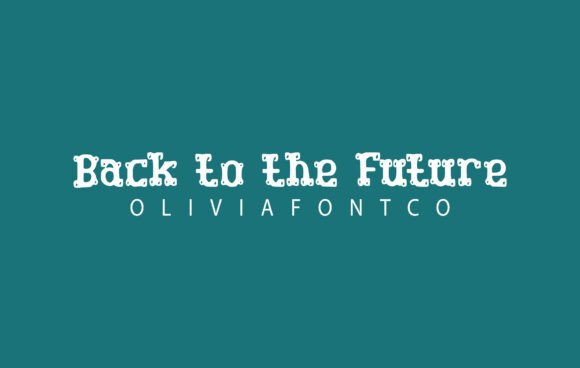
Some fonts don’t just look good — they become cultural icons. Few fonts have captured the imagination of movie lovers, retro design fans, and pop culture enthusiasts quite like the Back to the Future Font.
Recognizable at a glance, this bold, dynamic style instantly sparks nostalgia and excitement. Inspired by the legendary sci-fi movie trilogy from the 1980s, the font isn’t just about letters; it’s about movement, speed, and that unmistakable ‘80s vibe.
In this guide, we’ll explore what makes the Back to the Future Font special, creative ways to use it, how to download it, and answer common questions to help you bring its iconic style into your projects.
What Makes Back to the Future Font So Iconic?
✨ Instant Recognition
The slanted, speed-inspired letters evoke the movie’s time-traveling DeLorean, capturing a sense of motion and energy that’s timeless.
🎬 Pop Culture Status
Since the first film hit screens in 1985, the logo and font have become symbols of the decade’s sci-fi creativity and design style.
🎨 Retro Yet Timeless
With bold lines, angled cuts, and a futuristic aesthetic, this font is perfect for designs that nod to retro while still feeling fresh.
💥 High Impact
Its thick, stylized characters stand out in any design — from posters to YouTube thumbnails.
The Original Back to the Future Font
The movie’s iconic logo was custom-designed and isn’t an official commercial font. But thanks to dedicated designers and fans, there are fan-made replicas that closely match the original look.
One of the most popular replicas is called “Back to the Future” or “Back to the Future Bold.” These fonts recreate the tilted, dynamic style that made the logo so memorable.
Best Uses for Back to the Future Font
The font’s bold, sci-fi look makes it perfect for creative, nostalgic, or futuristic projects:
✅ Movie Posters & Fan Art – Recreate the classic style or design your own retro-futuristic posters.
✅ YouTube Thumbnails & Channel Branding – Especially for content about movies, gaming, or 1980s culture.
✅ Event Flyers & Invitations – Themed parties, sci-fi events, or retro nights.
✅ Merchandise & T-shirts – Quotes, logos, or fan merchandise that celebrate the franchise.
✅ Social Media Graphics – Posts or banners with a nostalgic, pop-culture twist.
✅ Title Designs – For podcasts, Twitch overlays, or themed video series.
Tips for Designing with Back to the Future Font
⚡ Add Motion: Tilt text, use slanted shapes, or add speed lines to echo the logo’s dynamic feel.
🌈 Use Gradients: The original logo used bold gradients from red to yellow for a fiery look.
🎨 Pair with Simple Fonts: Combine the bold logo font with clean sans-serifs for supporting text.
🕰 Think Retro: Use neon colors, grids, and retro patterns to complete the 80s aesthetic.
📐 Large Titles Only: The font’s detail makes it best for headlines, logos, or large text, not body copy.
Creative Ideas to Try
🎥 80s Movie Night Poster: Design an invitation using the font with neon backgrounds.
🕹 Retro Gaming Channel: Brand your YouTube thumbnails with the font for instant nostalgia.
👕 Custom T-shirts: “Back to the Party” or “Back to the 90s” in classic style.
🎉 Birthday Invitations: Especially fun for milestone birthdays with a retro twist.
Why Back to the Future Font is Still Loved Today
Decades later, the font still resonates because:
🕰 Nostalgia: It brings back memories of a beloved film and the excitement of 80s pop culture.
🎬 Timeless Design: The slanted, bold look still feels modern and dynamic.
⚡ Unique Style: It’s instantly recognizable, unlike many generic sans-serifs.
For designers, it’s a playful yet powerful way to tap into retro-futuristic energy.
Final Thoughts: Design with a Touch of Time Travel
Back to the Future Font isn’t just letters on a screen — it’s a symbol of speed, adventure, and pop culture magic. Whether you’re designing fan art, posters, social media graphics, or themed party invites, it instantly adds excitement and nostalgia.